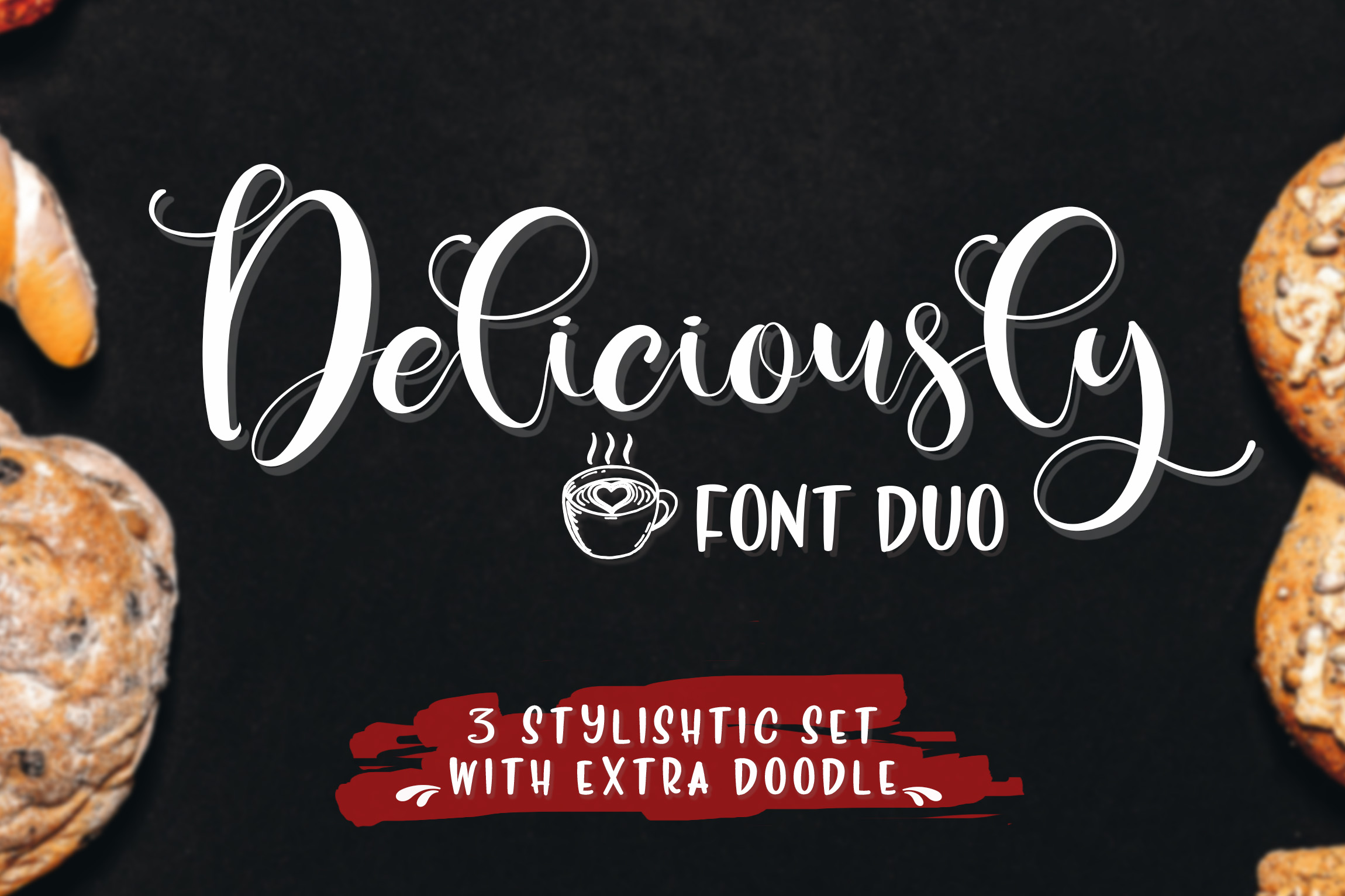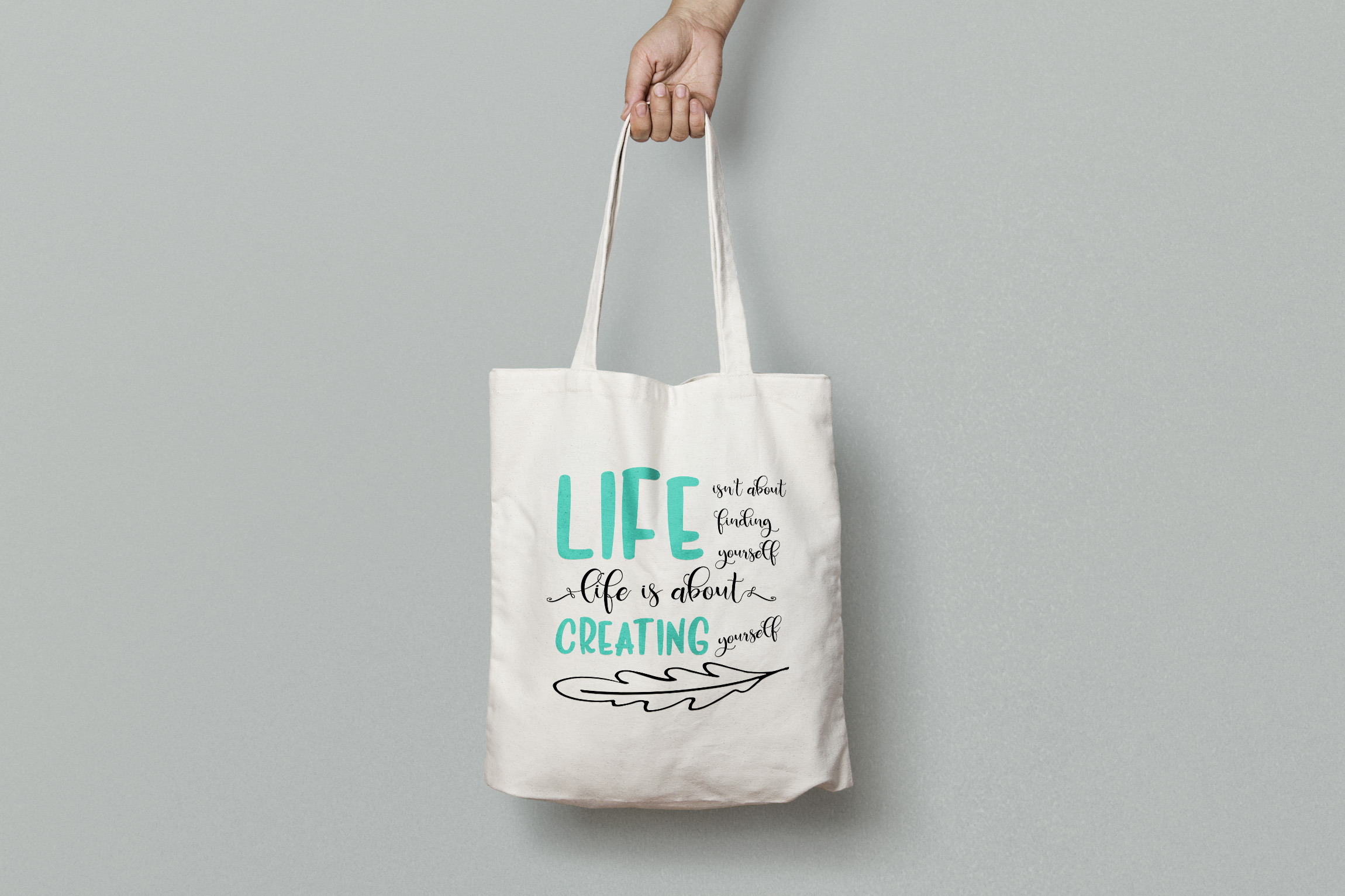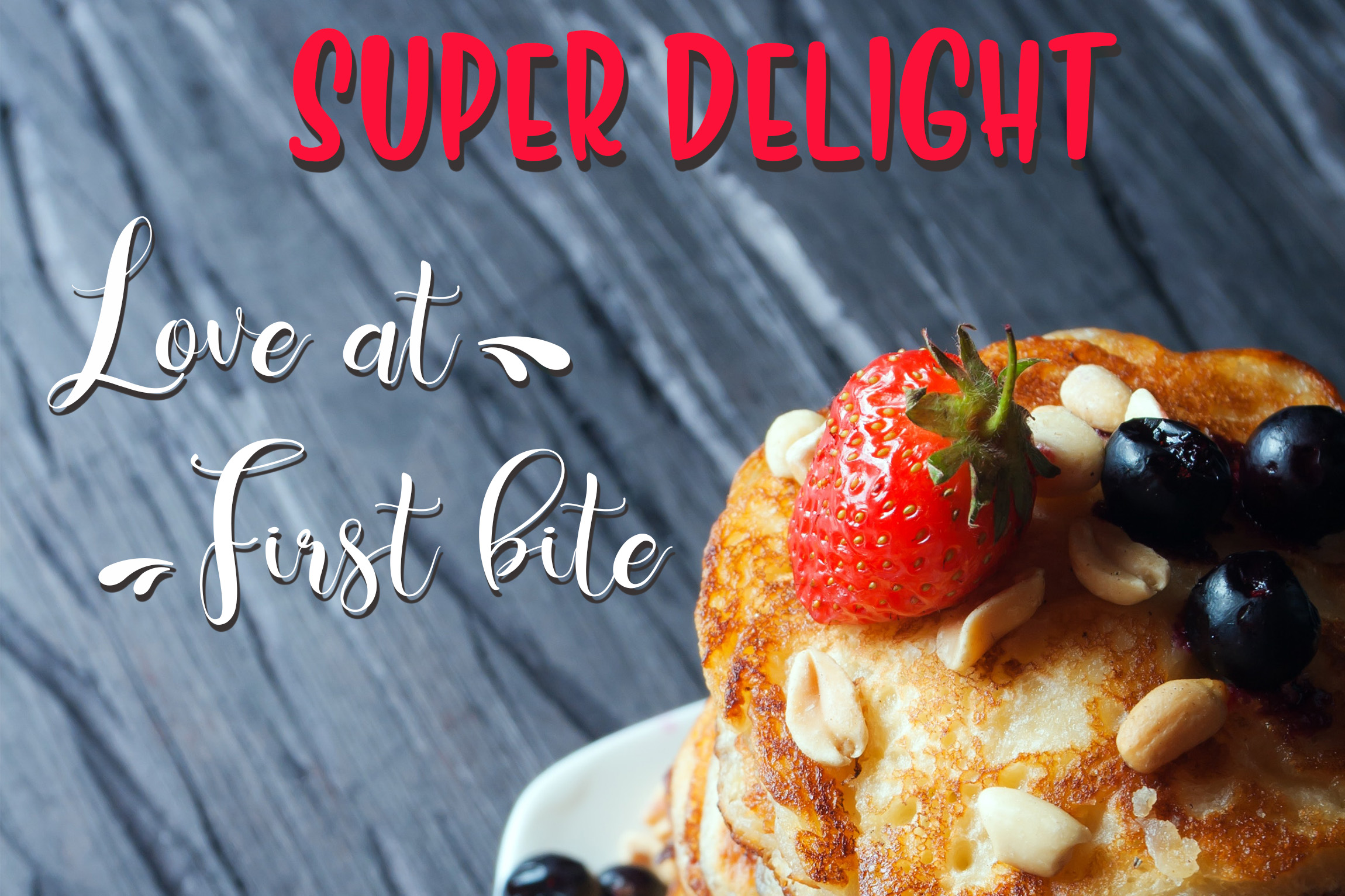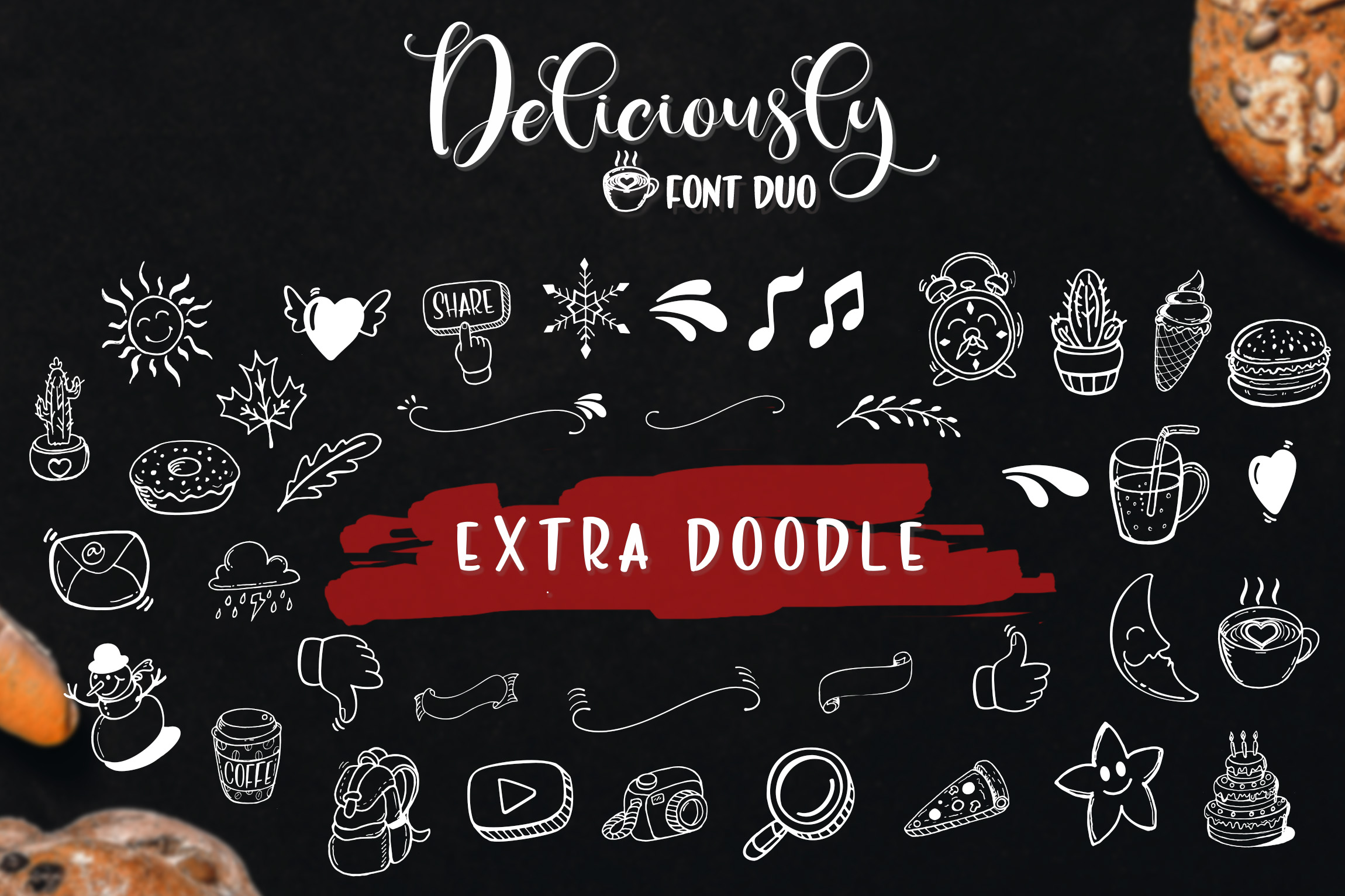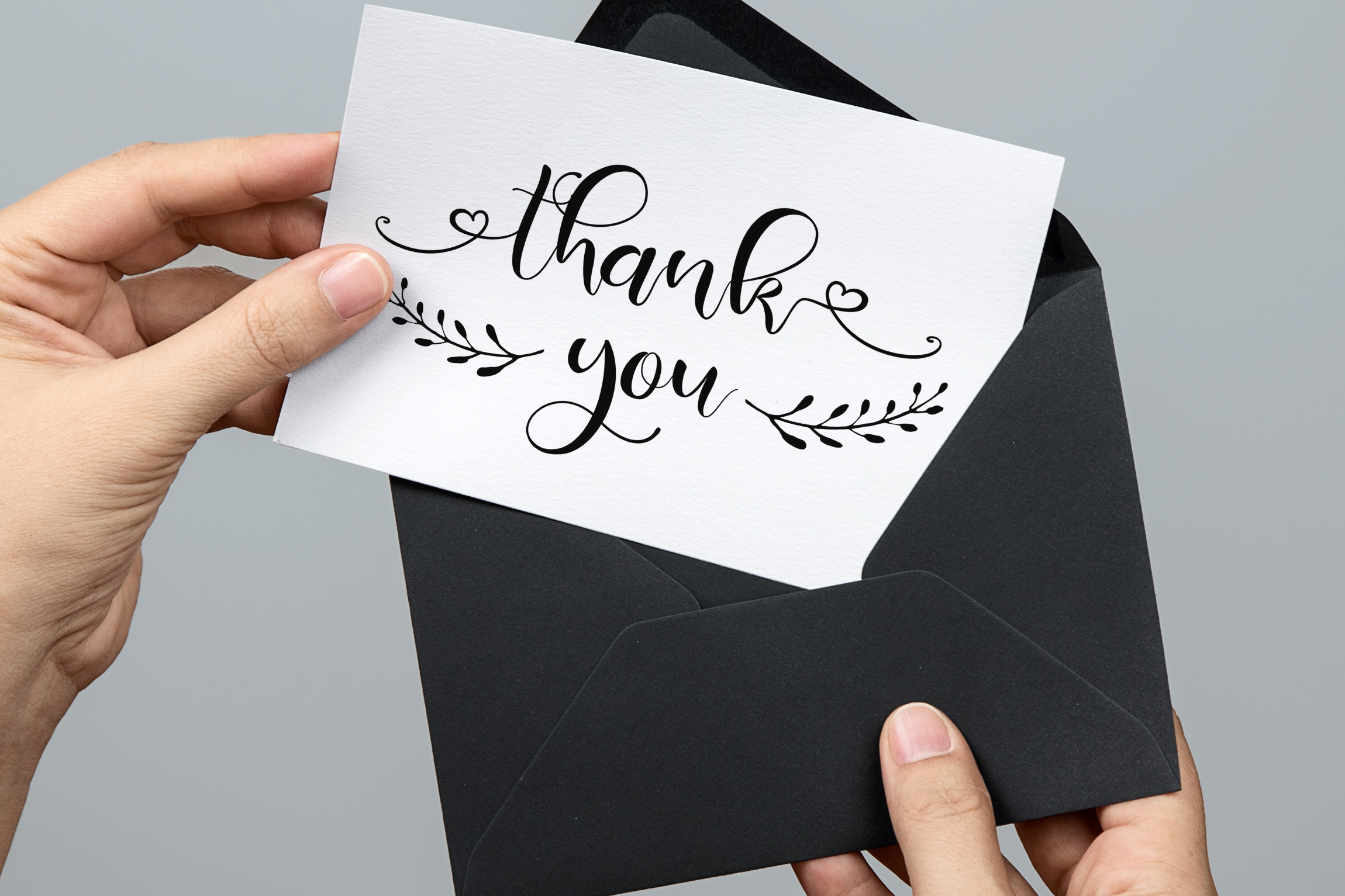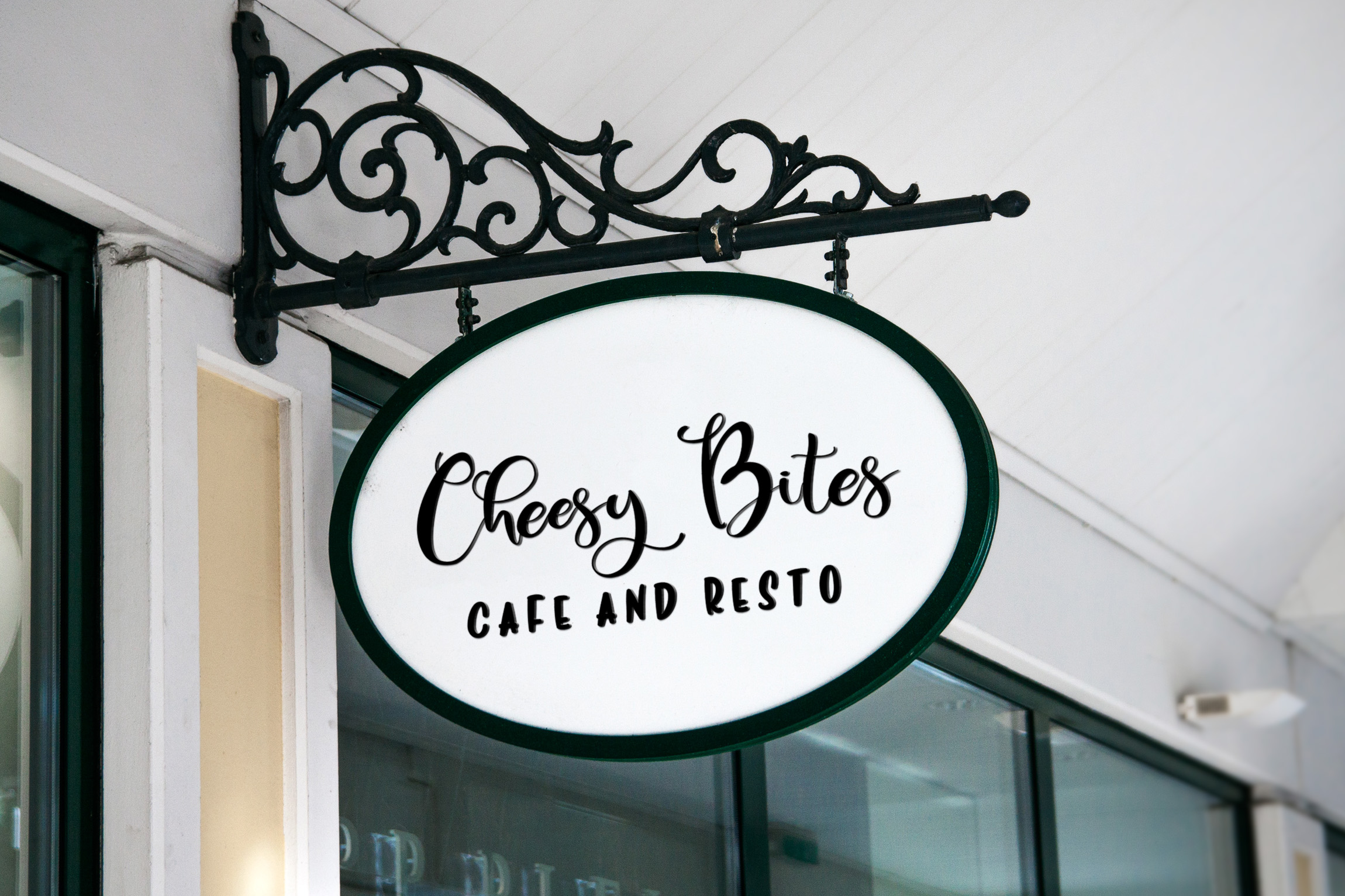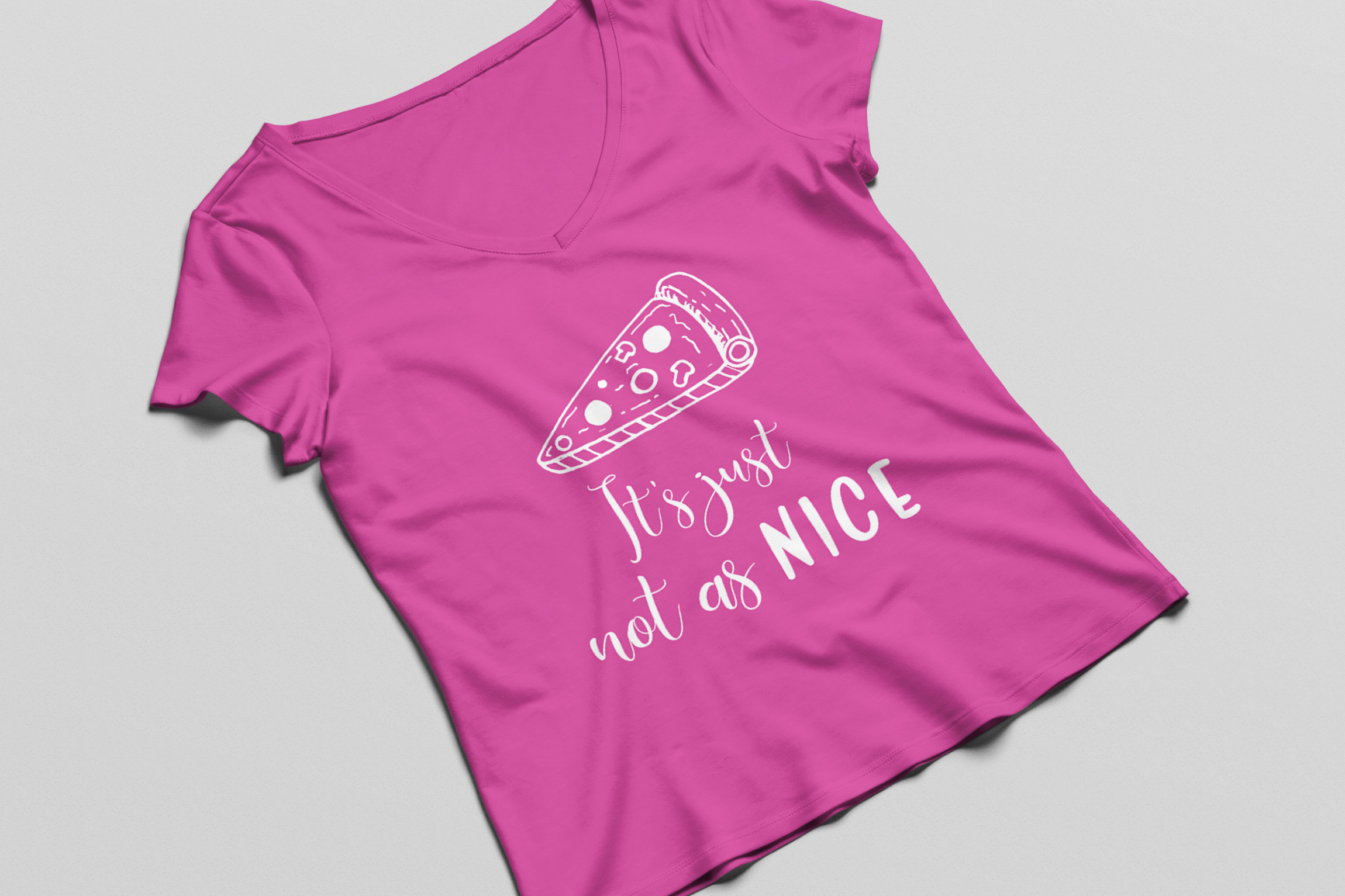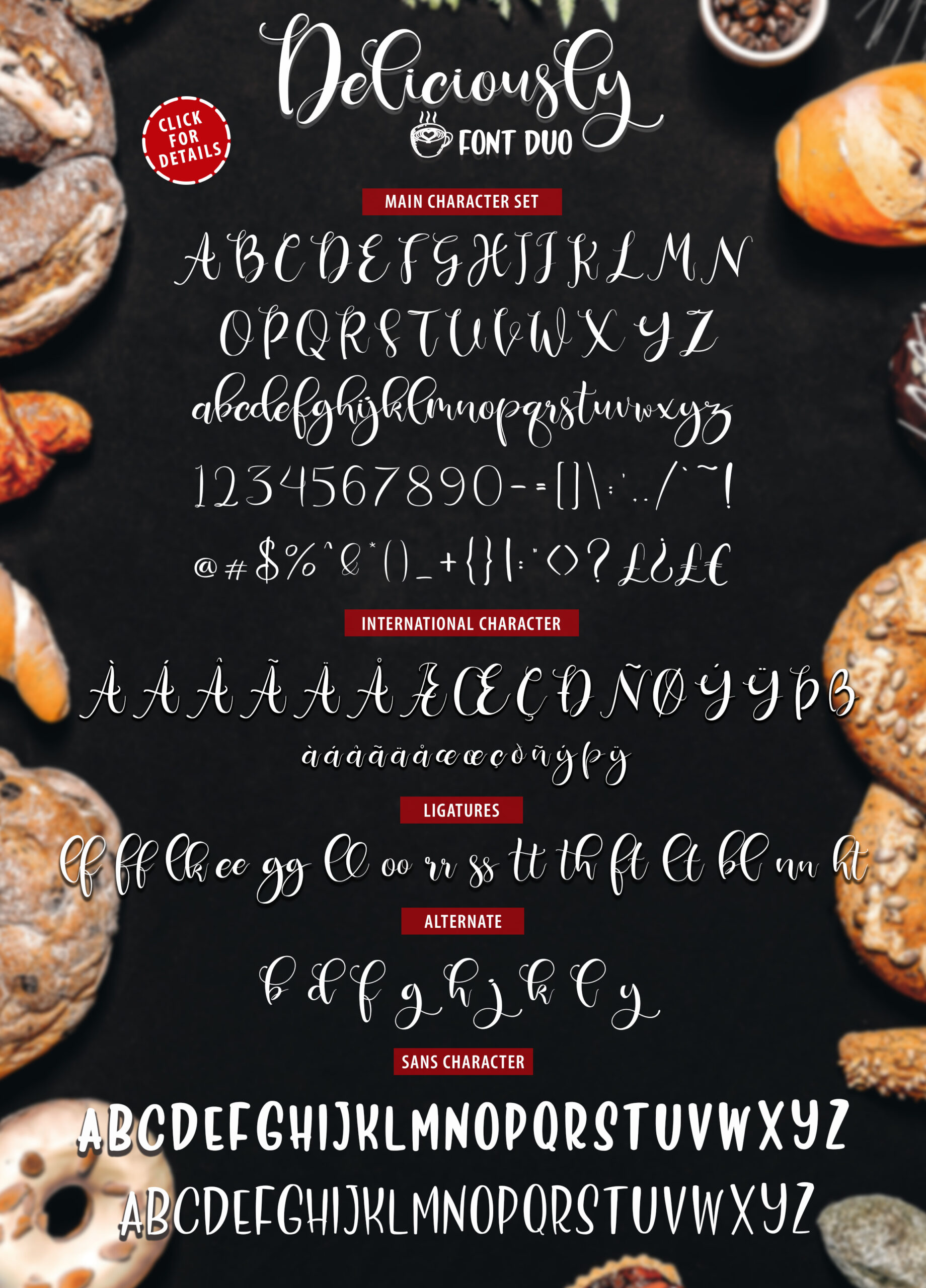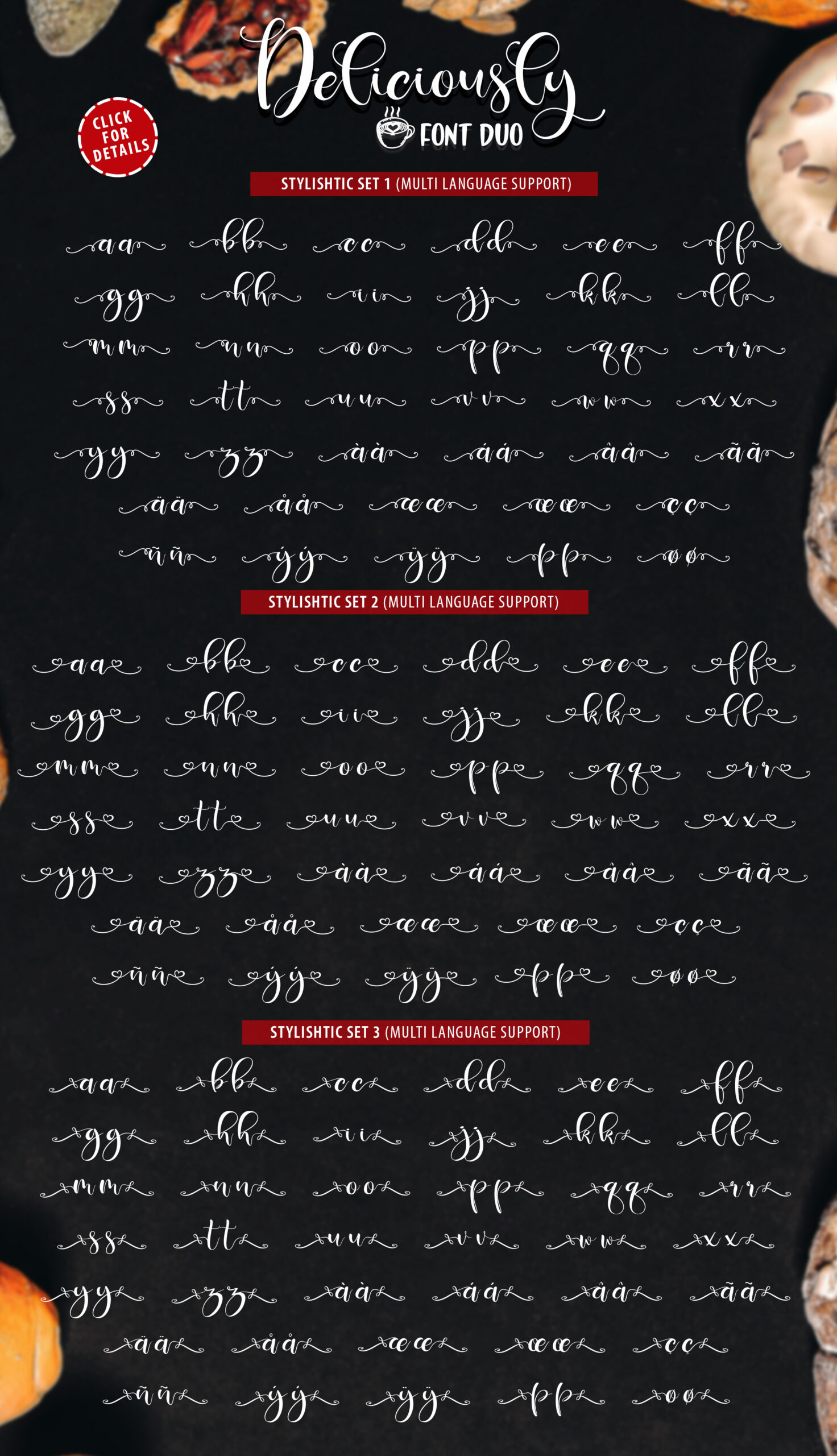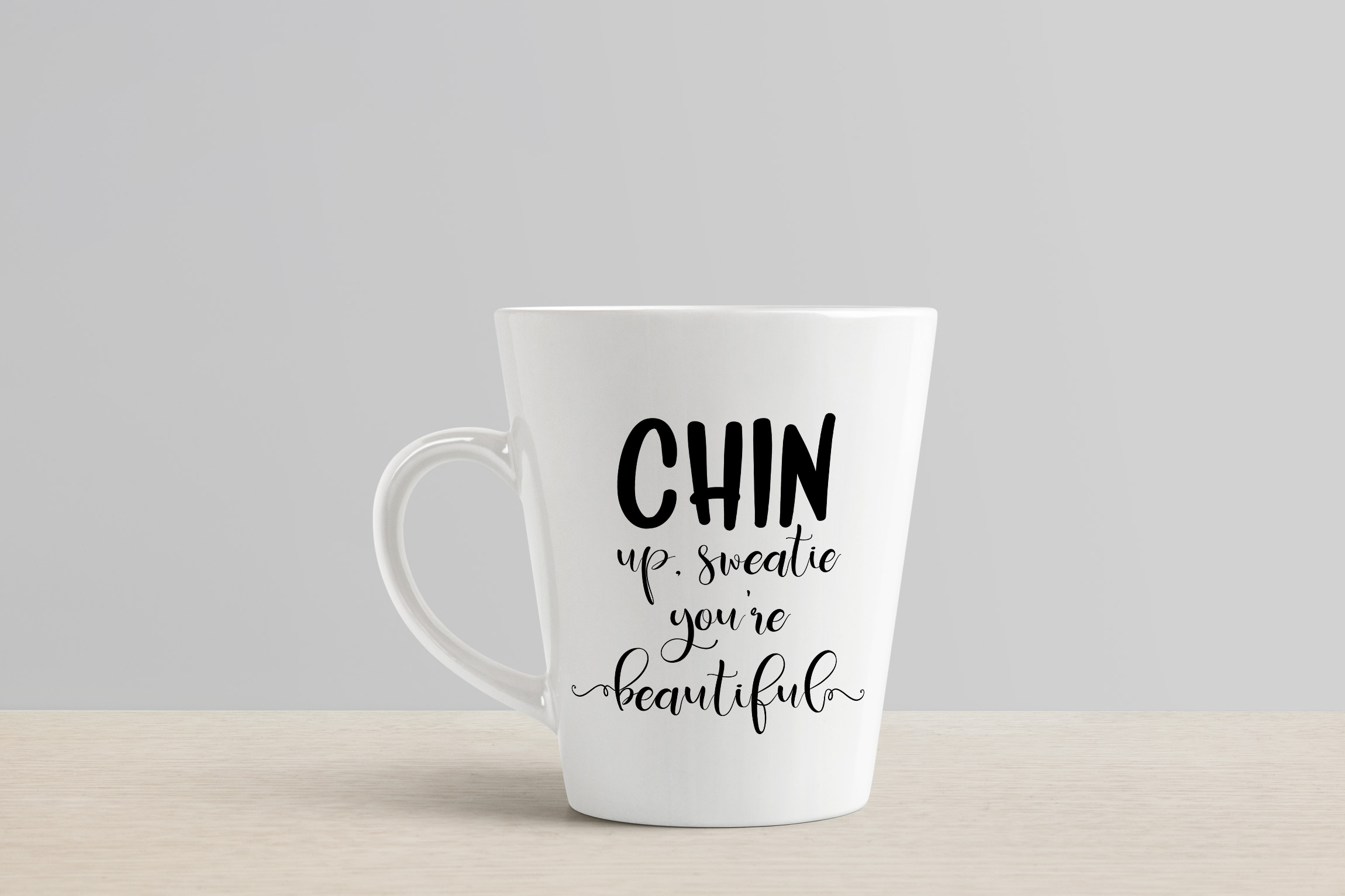
Deliciously Font Duo Font
About Deliciously Font Duo Font
Deliciously is a stunning and comprehensive font duo, perfect for giving your projects a branded but friendly feel. This font comes with a calligraphy styled handlettered script (with tons of stylistic alternates), a sans serif font, and added illustrations!